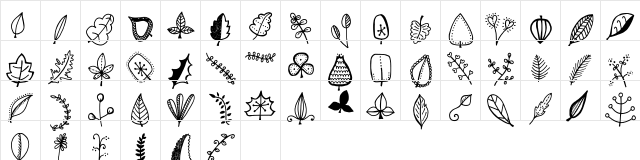
Tanaestel Doodle Leaves 01 Regular
Design Context for Tanaestel Doodle Leaves 01 Typeface
Tanaestel Doodle Leaves 01 is a composed and adaptable typeface that performs quietly and consistently across a wide range of design contexts.